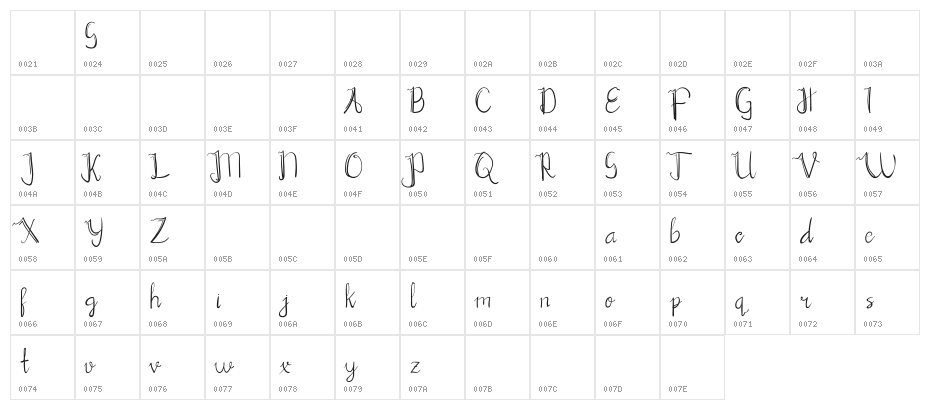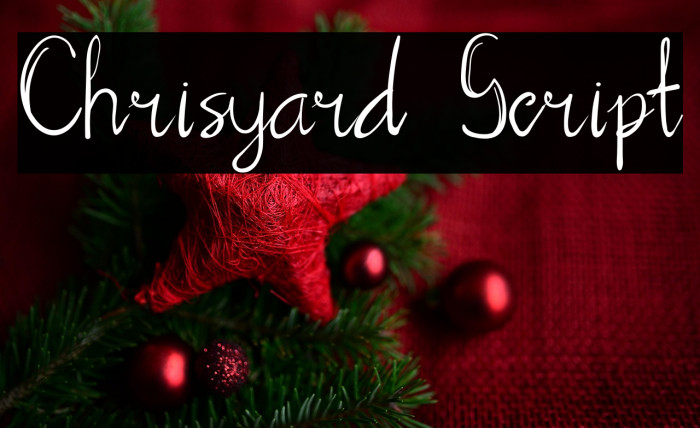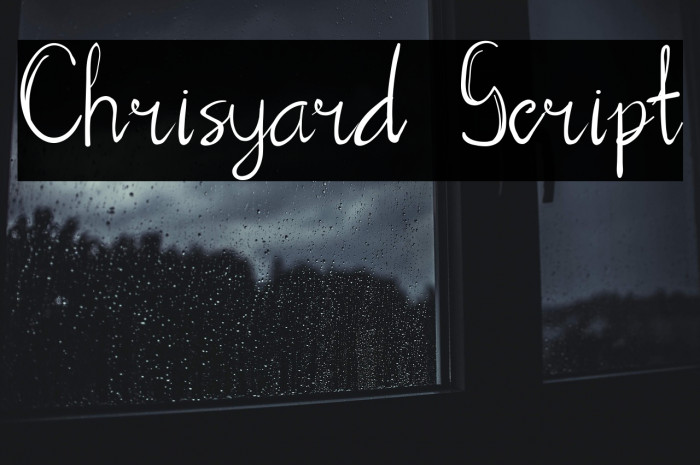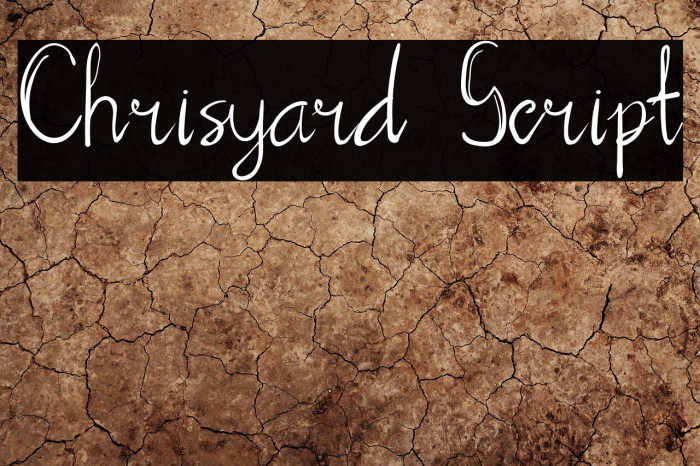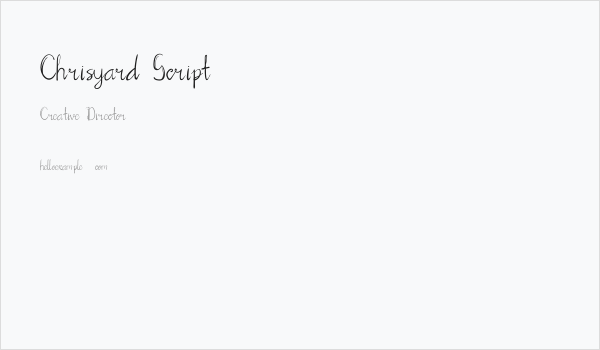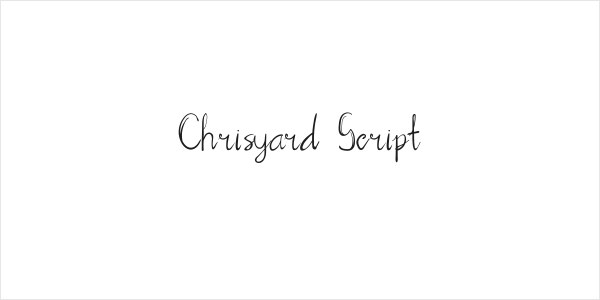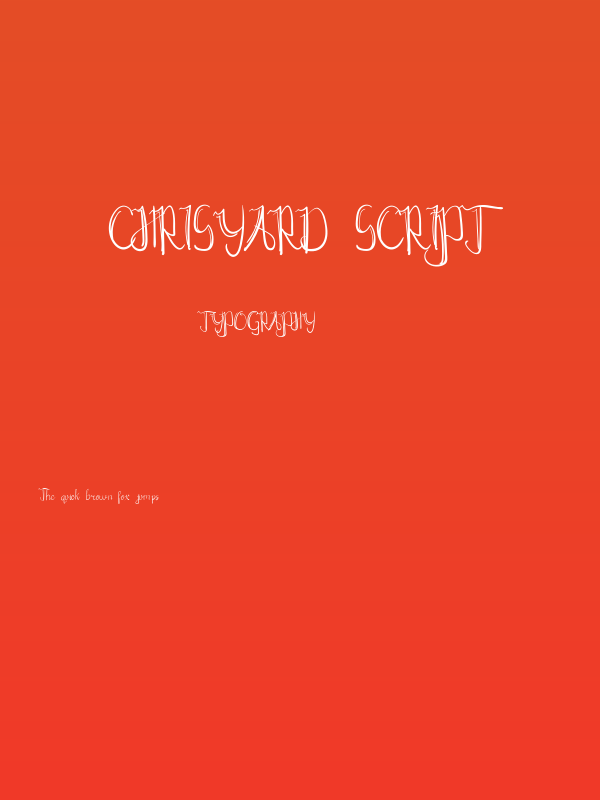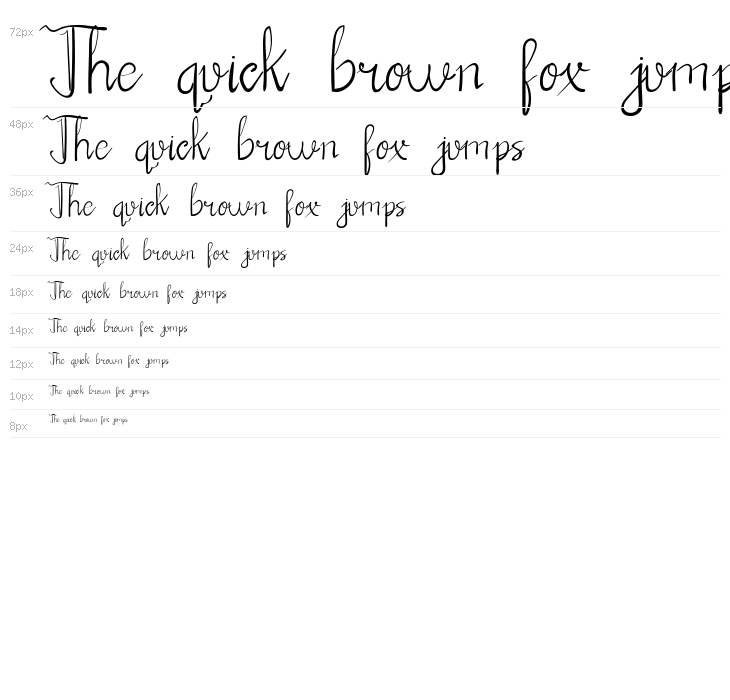
Chrisyard Script Font
Chrisyard Script Description
This font exhibits a unique and artistic script style, characterized by its elegant and flowing letterforms. The uppercase letters are tall and slender, with intricate loops and curves that give them a sophisticated appearance. The lowercase letters maintain a consistent style, with smooth connections and a graceful flow. The overall design is reminiscent of calligraphy, with a modern twist that adds a touch of flair. The font's distinctiveness is further enhanced by its varying stroke thickness, which adds depth and dimension to each character. This font is ideal for projects that require a personal and creative touch, such as invitations, greeting cards, and artistic branding.
| Use Case | Logos, Headlines, Artistic projects |
| Proposed Projects | Ideal for invitations, greeting cards, artistic branding, and creative projects. |